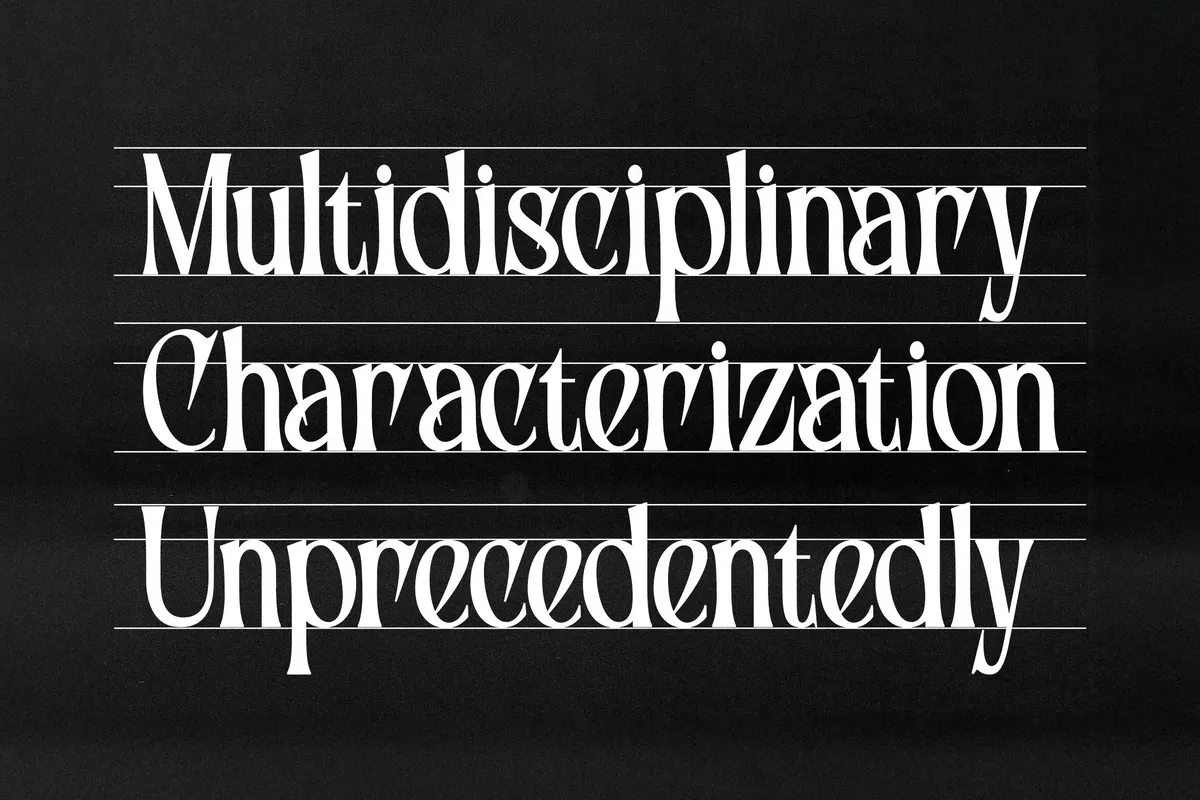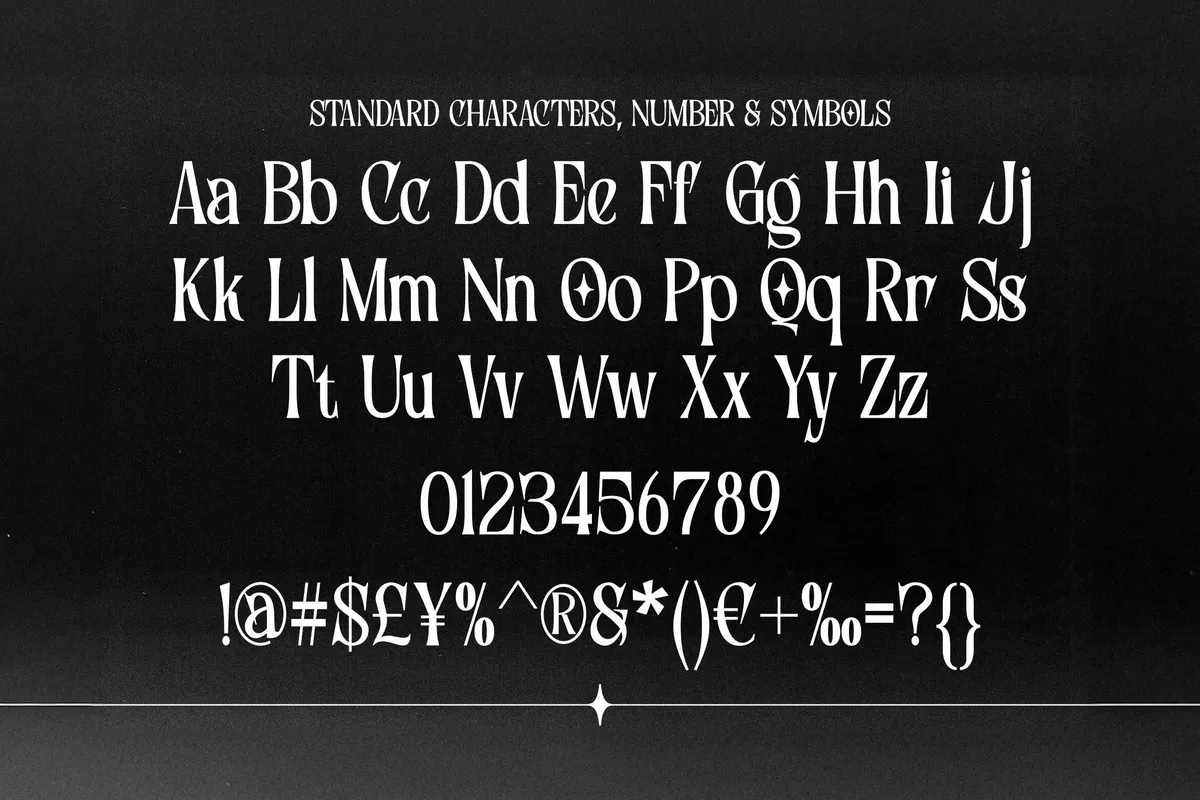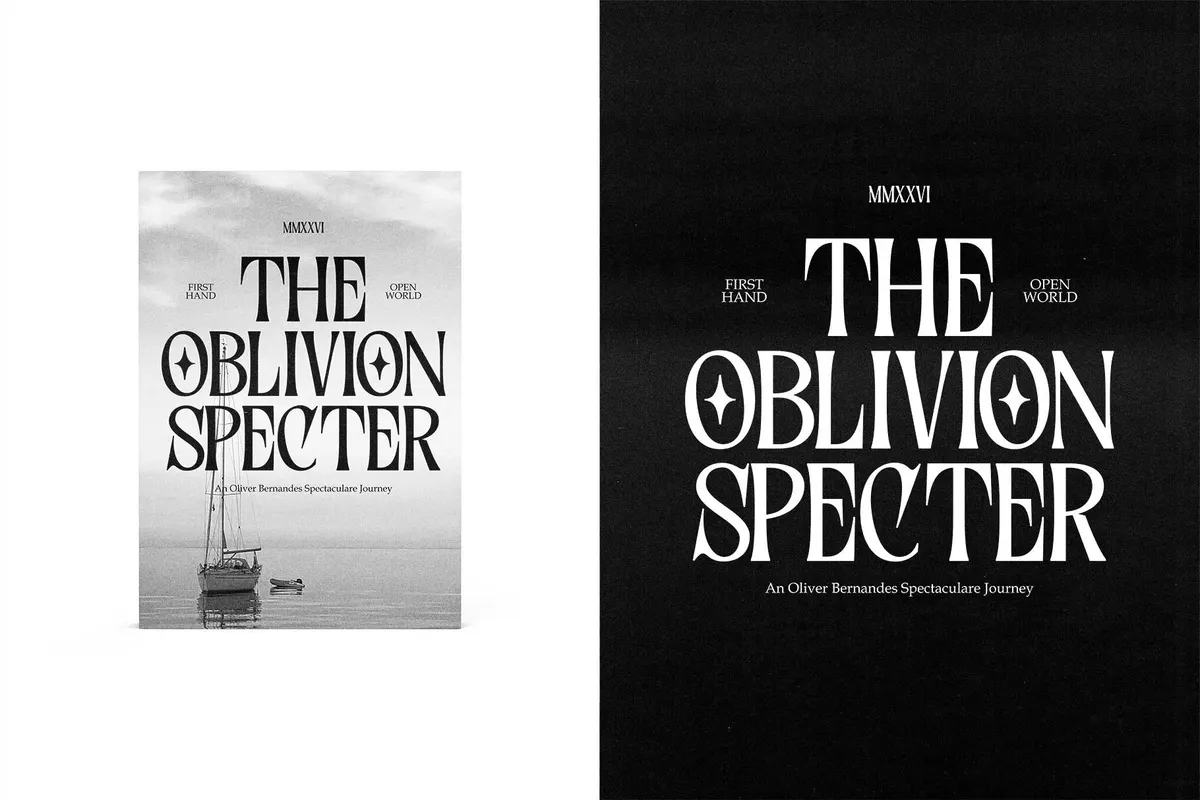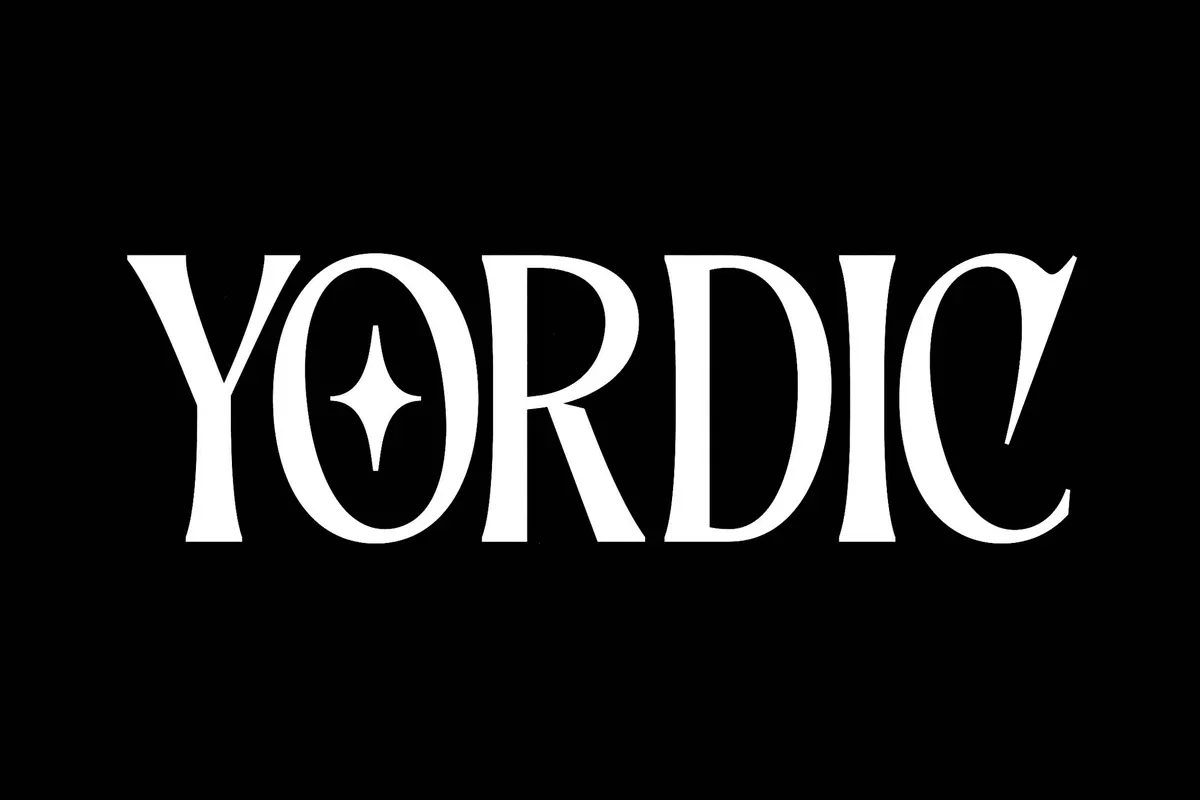
Yordic - Vintage Serif Display Font
Yordic
Yordic draws on Victorian display lettering and Art Deco signage, with tall, slender letterforms, high stroke contrast, and ornamental flourishes on the capitals. Every uppercase O carries a small four-pointed star inside its counter, a signature detail that repeats across headlines without needing a separate alternate. The construction leans theatrical and a little gothic at the edges, closer to a 1920s theater marquee than a clean editorial serif.
Use it for branding, editorial headlines, packaging, poster and invitation design, logotypes, book covers, and luxury or vintage-inspired layouts.
- Uppercase & lowercase, with a signature star inside every capital O;
- Numerals, punctuation & symbols;